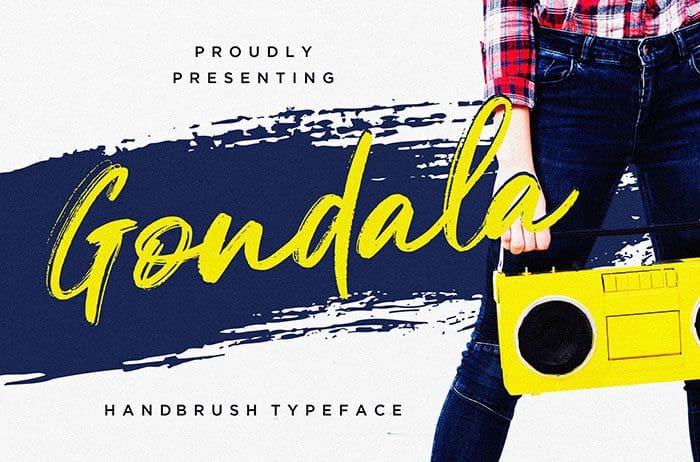
Gondala Brush Font
Gondala is a handwritten Brush Font with authentic dry brush imperfections strokes drawn on paper. Gondala is perfect for logo, product designs, labels, and more. Thanks to Creatype Studio for sharing this font! Take a look at this portfolio for more of his stunning fonts.